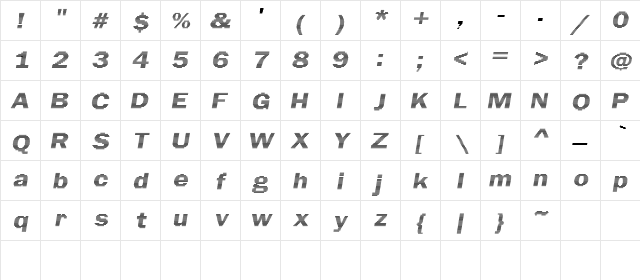
Linear Beam 0.5
Design Context for Linear Beam Typeface
Linear Beam takes a measured approach to typography — its balanced proportions and neutral character make it a reliable workhorse for both digital and print work.